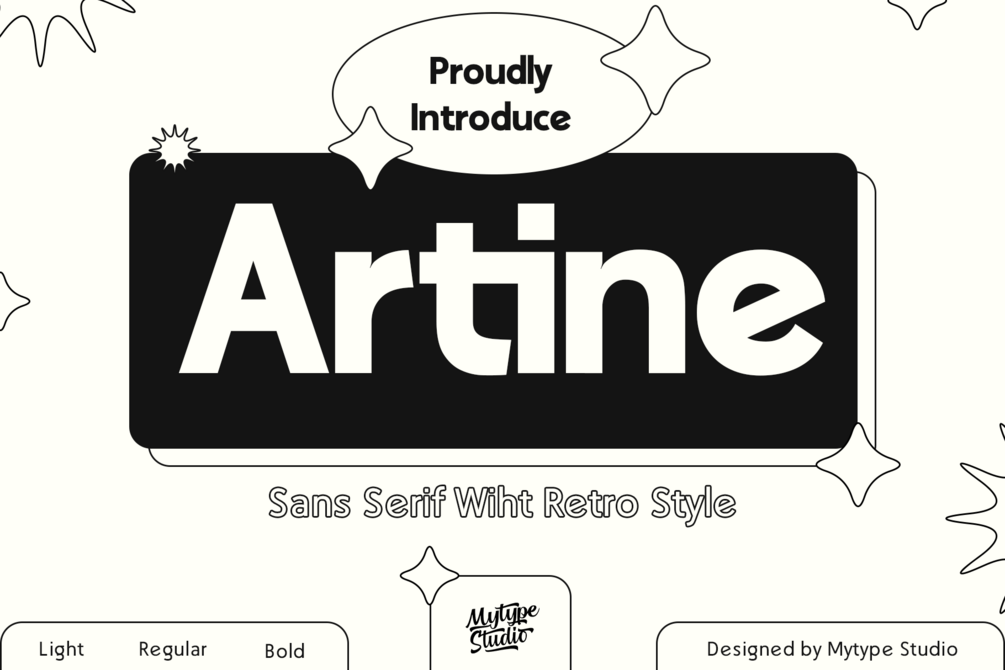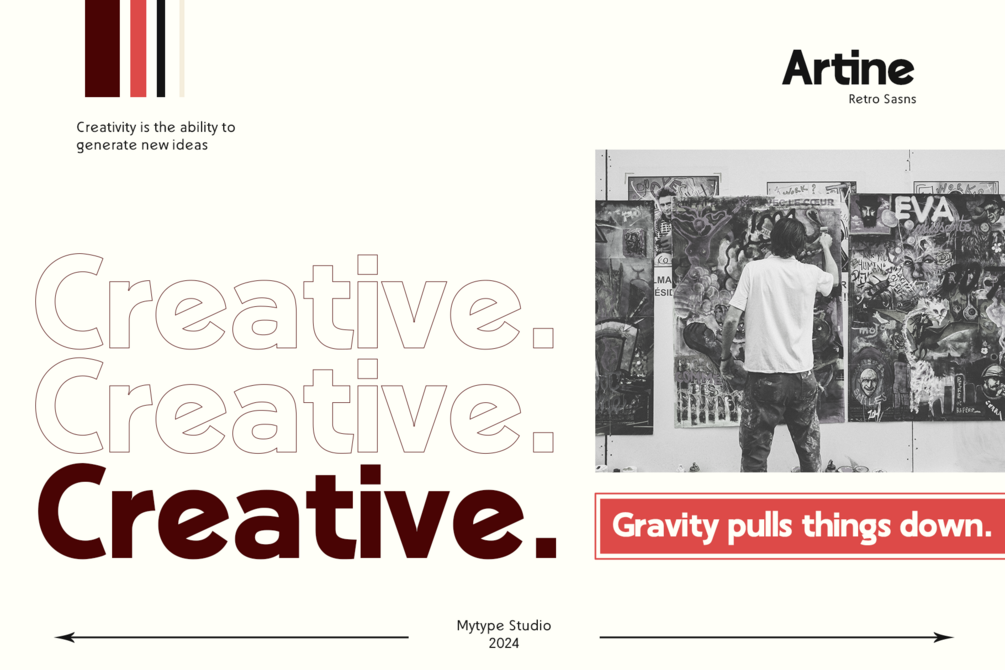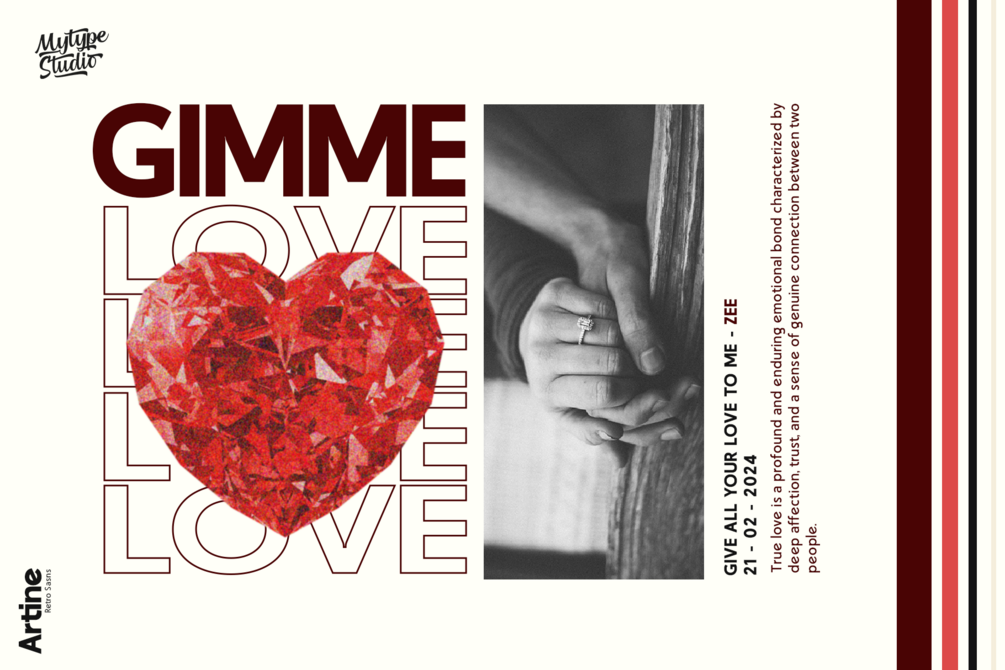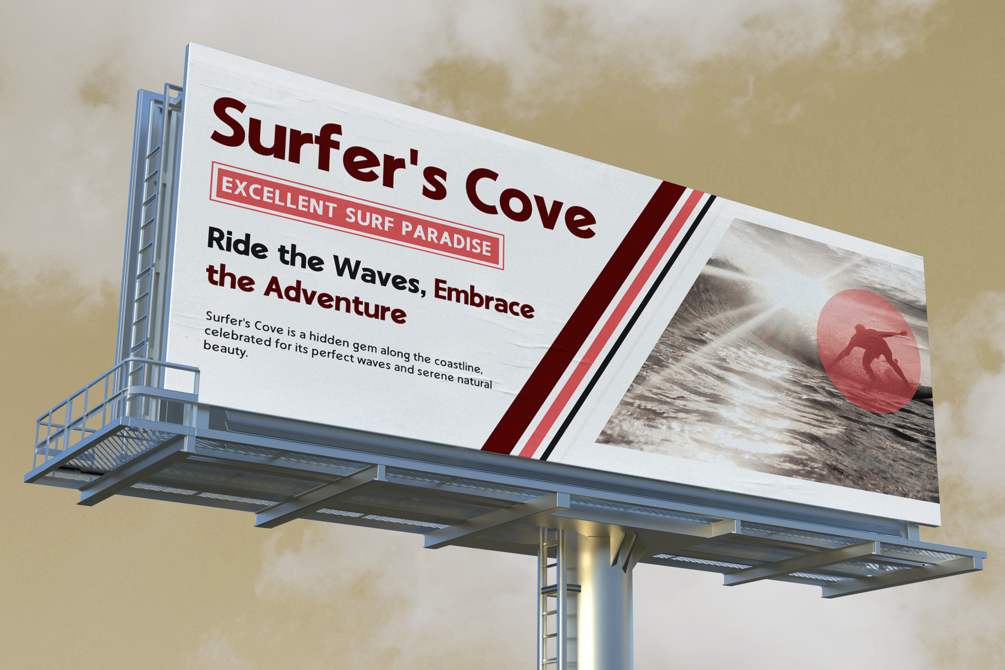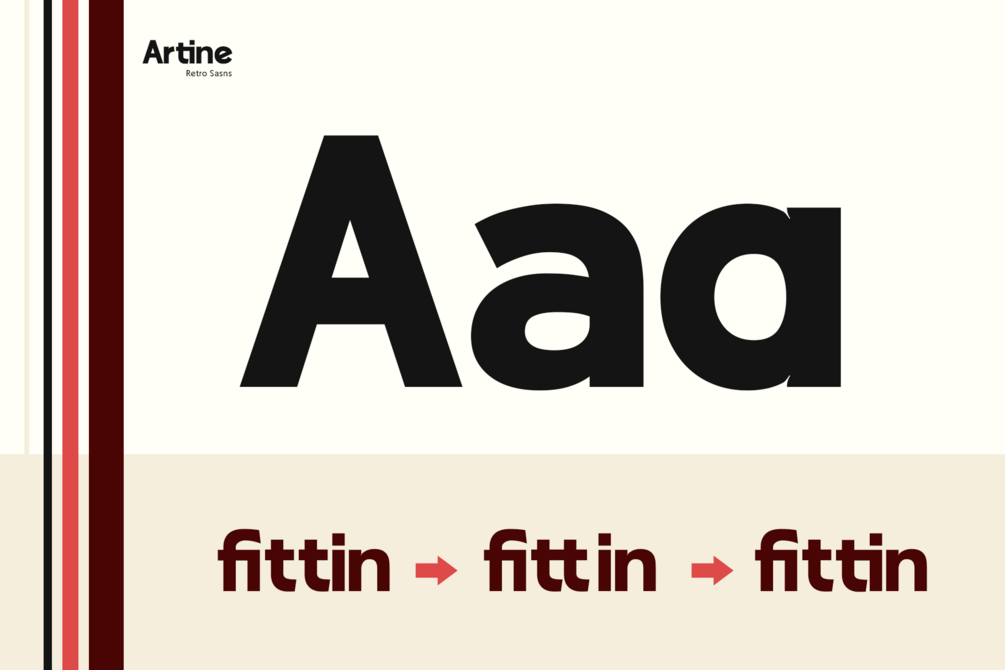
Artine - Retro Sans Serif
Unleash your creativity with Artine, the latest addition to your design toolkit. Inspired by classic retro aesthetics, Artine offers a versatile sans serif typeface available in three distinct weights: Light, Regular, and Bold. Whether you're working on a vintage-themed project, modern branding, or eye-catching headlines, Artine delivers the perfect blend of nostalgia and contemporary style.
Features:
• Retro Vibes: Embrace the charm of yesteryears with a typeface that captures the essence of retro design.
• Versatile Weights: Choose from Light, Regular, and Bold to create dynamic and engaging visual hierarchies.
• Clean and Crisp: Enjoy the clarity and readability of a sans serif typeface, perfect for both print and digital mediums.
• Designed for Impact: Artine’s bold lines and unique character make it ideal for logos, posters, advertisements, and more.
Why Artine?
Artine stands out with its timeless appeal and adaptability. It’s not just a font; it’s a statement piece that brings a touch of elegance and fun to any project. Designed by Mytype Studio, this typeface is crafted with attention to detail, ensuring high quality and usability.
Perfect For:
• Branding and Logos
• Posters and Flyers
• Website Headers
• Social Media Graphics
• Packaging Design
• Editorial Layouts